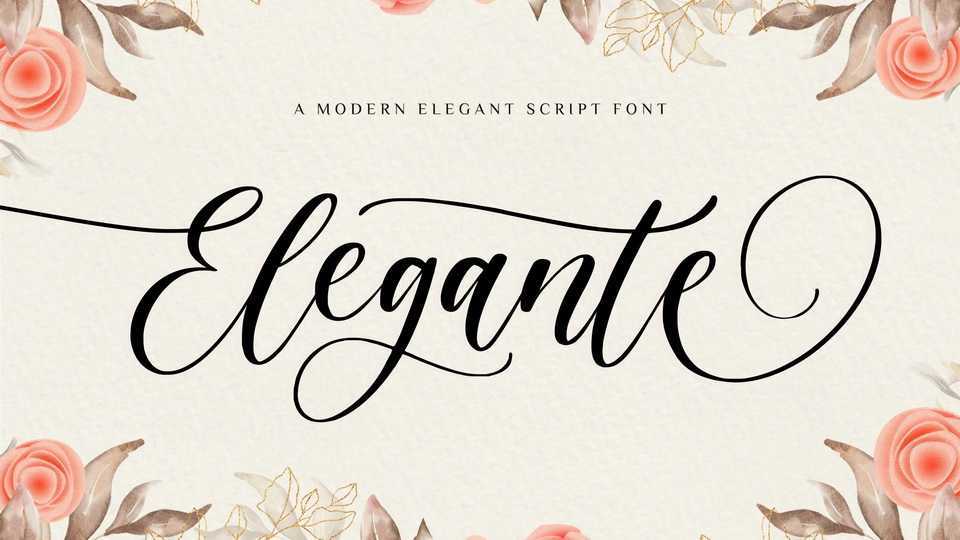
Download Elegante font, an elegant modern calligraphy typeface. Elegante is perfect for product packaging, branding project, magazine, social media, wedding, or just used to express words above the background.
Designer: Balpirick Studio